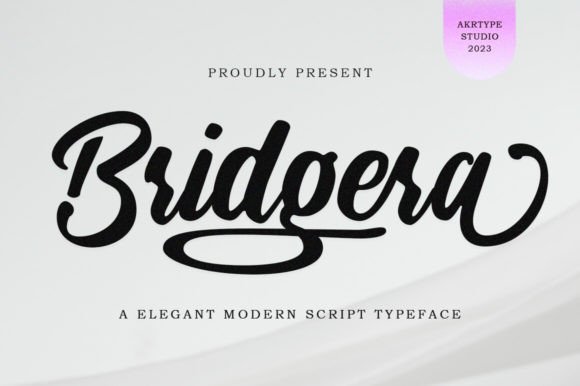
Journey into the enchanting world of Bridgera Script, a font family born from the fusion of timeless elegance and authentic calligraphy. Each letter, meticulously crafted with a touch of finesse, exudes an aura of charm and sophistication. Bridgera is not merely a font; it's an artistic masterpiece that will transform your designs into captivating creations.
Picture the joy of a baby boy's arrival, a precious moment that deserves a font as unique and special as he is. Bridgera Script is that very font, designed to capture the essence of innocence and wonder. Its delicate curves and playful flourishes will add a touch of magic to baby announcements, nursery décor, and all things crafted for your little prince.
Imagine the delight of receiving a heartfelt letter penned in Bridgera Script. Its graceful strokes and elegant serifs evoke a sense of warmth and sincerity, making your words come alive on the page. Whether it's a love letter, a thank-you note, or a heartfelt message to a friend, Bridgera Script will elevate your sentiments, leaving a lasting impression.
Bridgera Script is more than just a font; it's an expression of your creativity, a tool to bring your artistic visions to life. Its versatility knows no bounds, adapting seamlessly to logos, branding, invitations, and countless other projects. Let Bridgera Script be your muse, inspiring you to create designs that captivate and enchant.
With Bridgera Script, ordinary becomes extraordinary. Its timeless beauty will add a touch of elegance to any project, while its friendly charm ensures a connection with your audience. Embrace the magic of Bridgera Script and embark on a creative journey that will leave you spellbound.